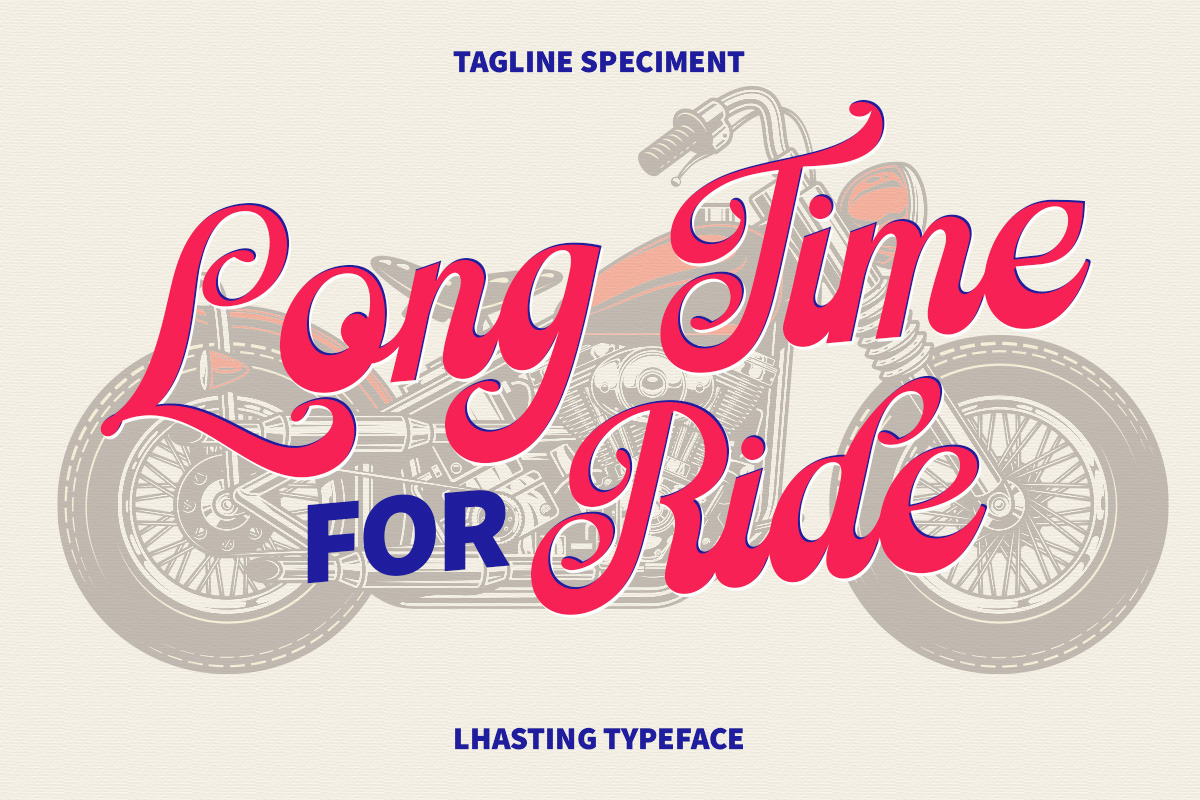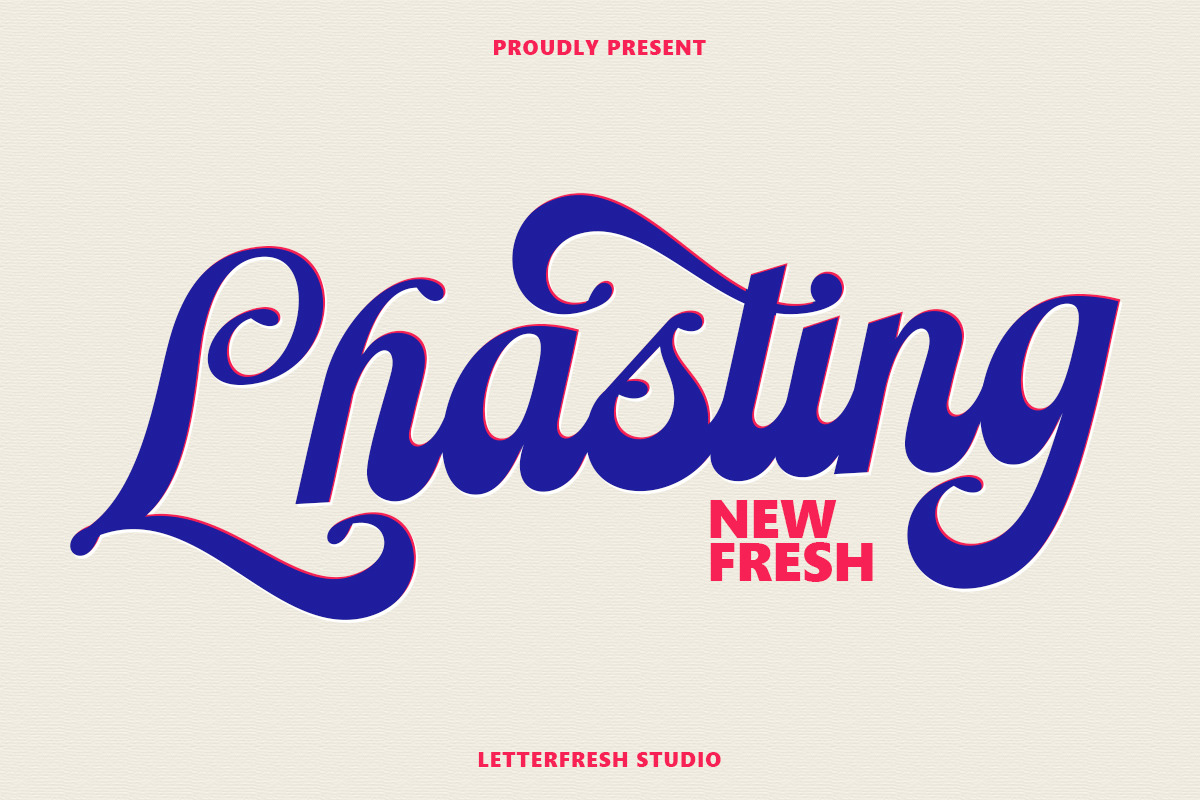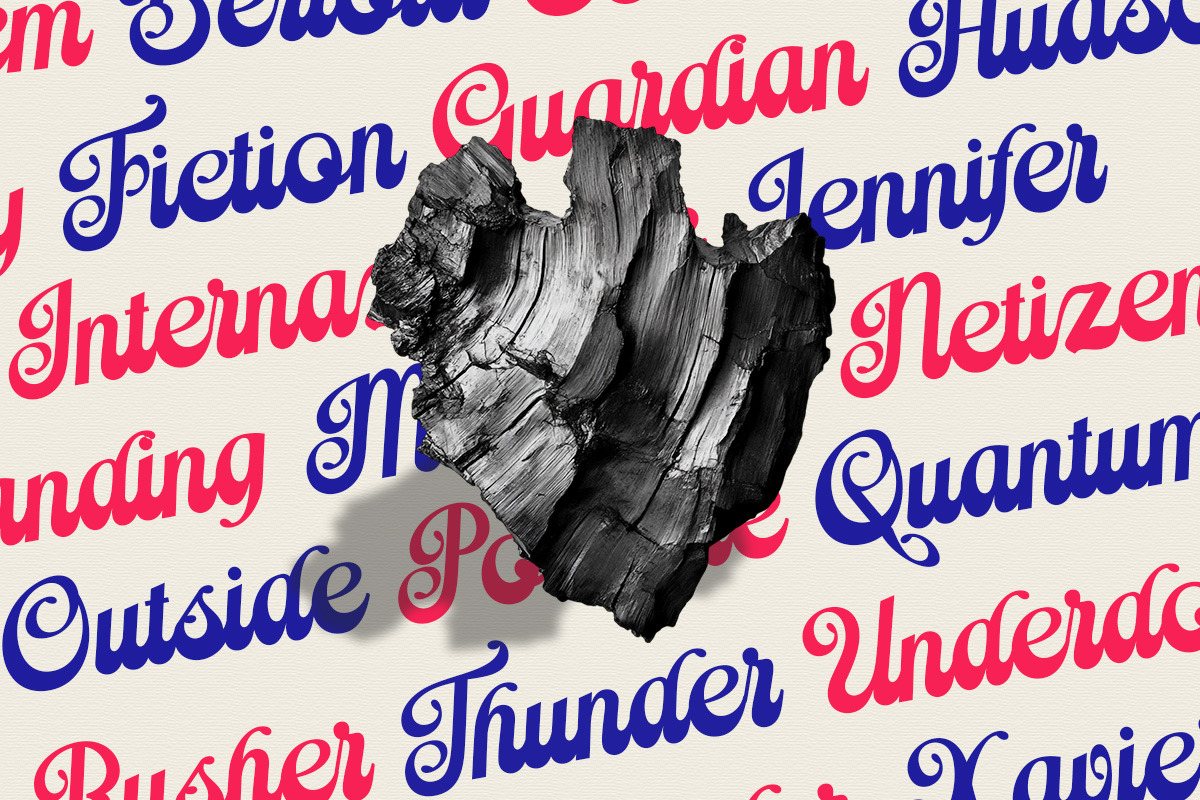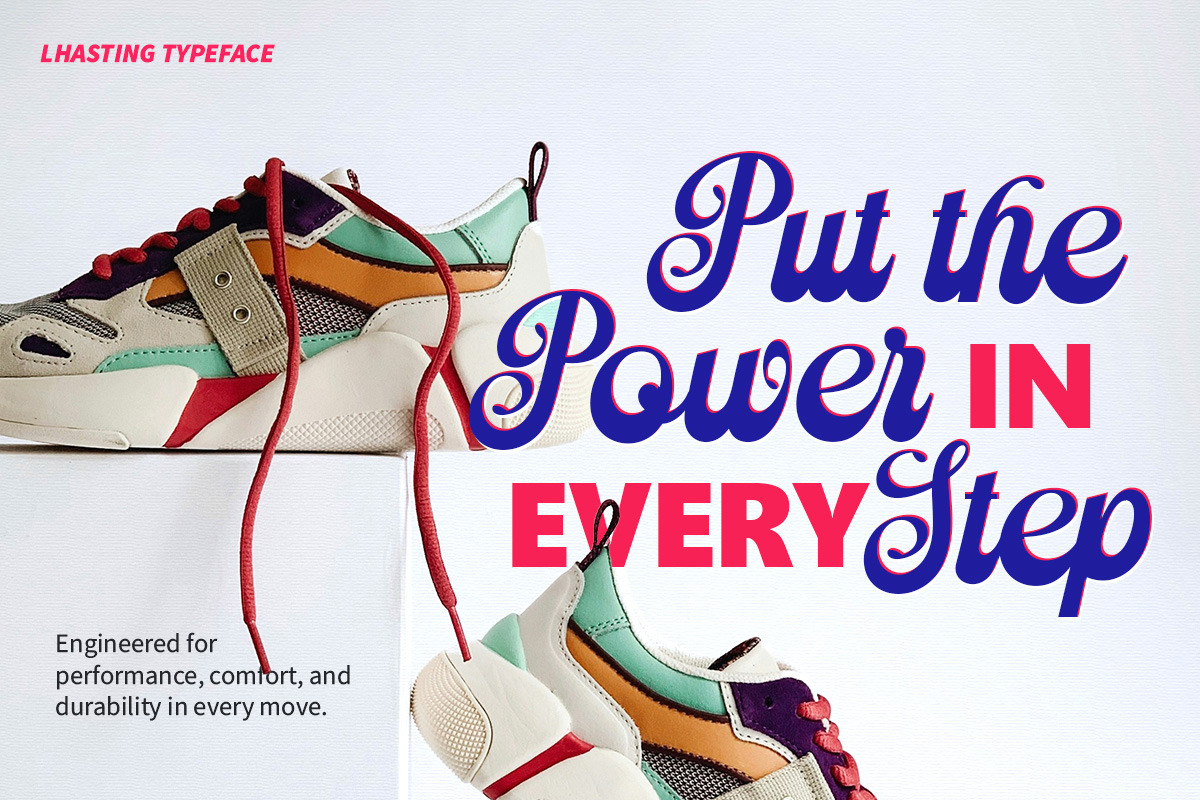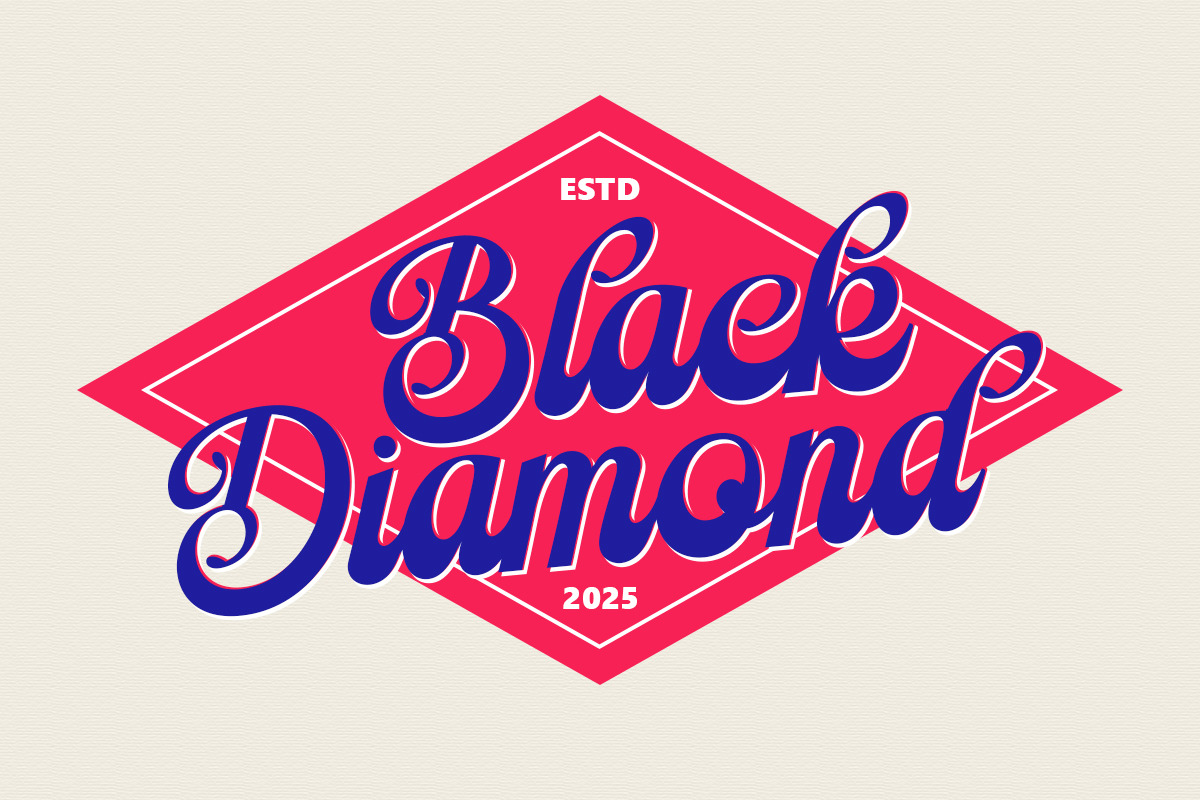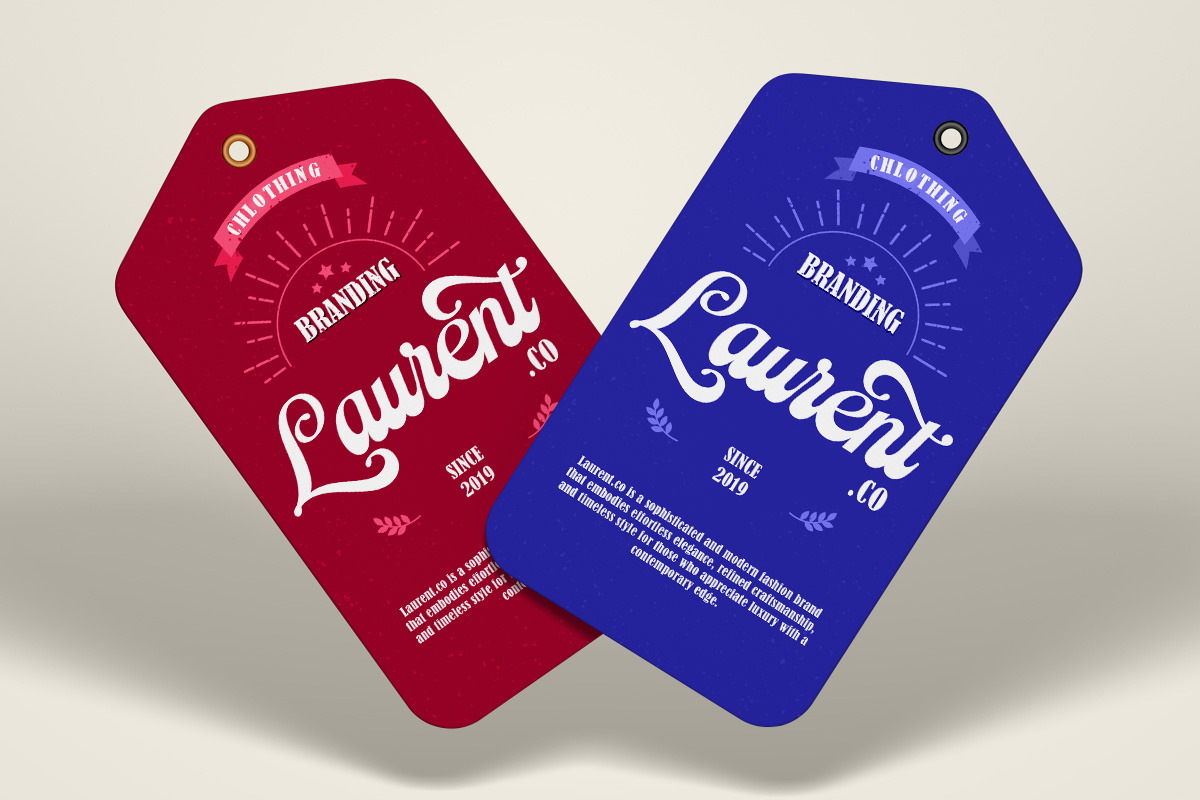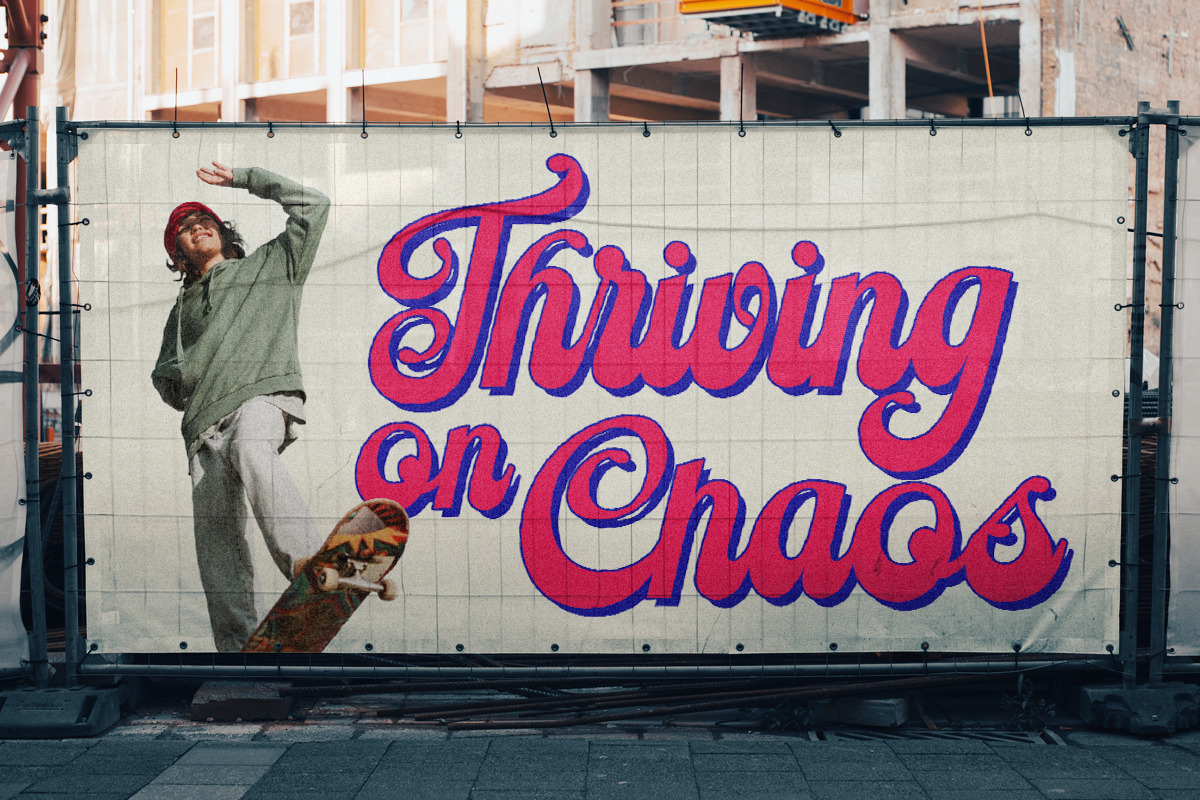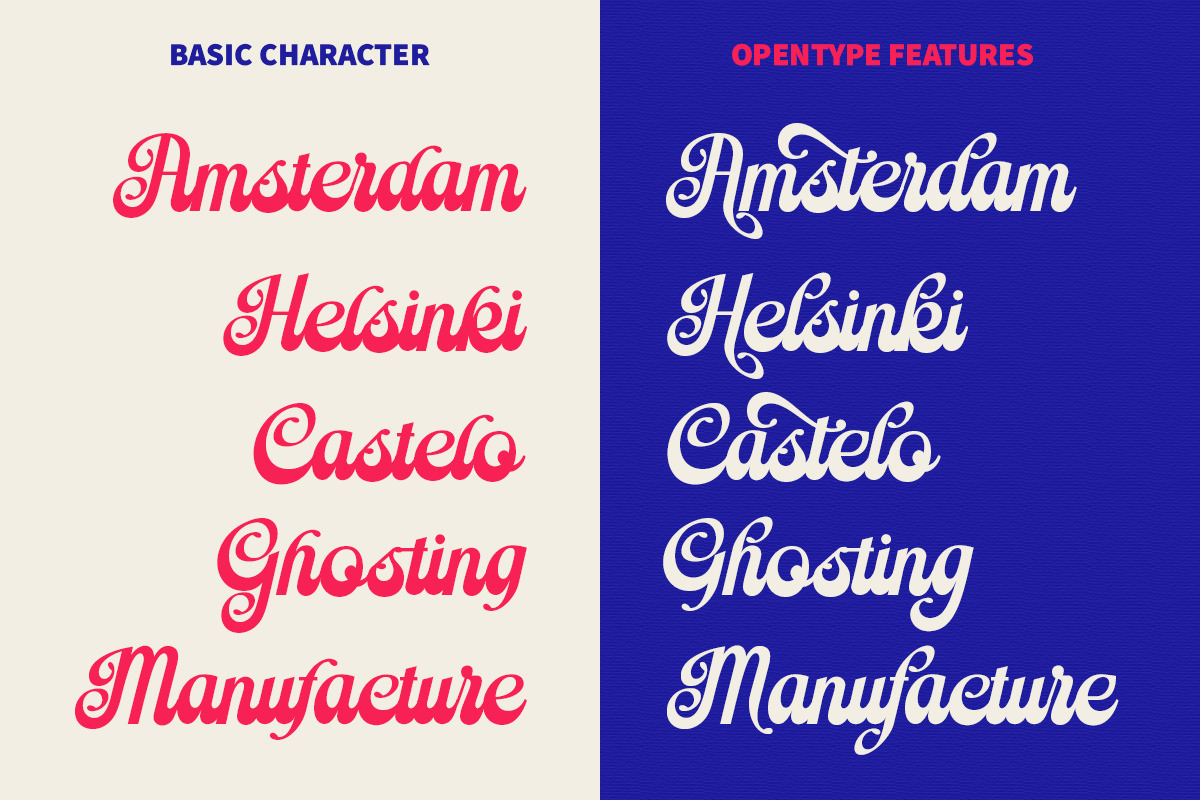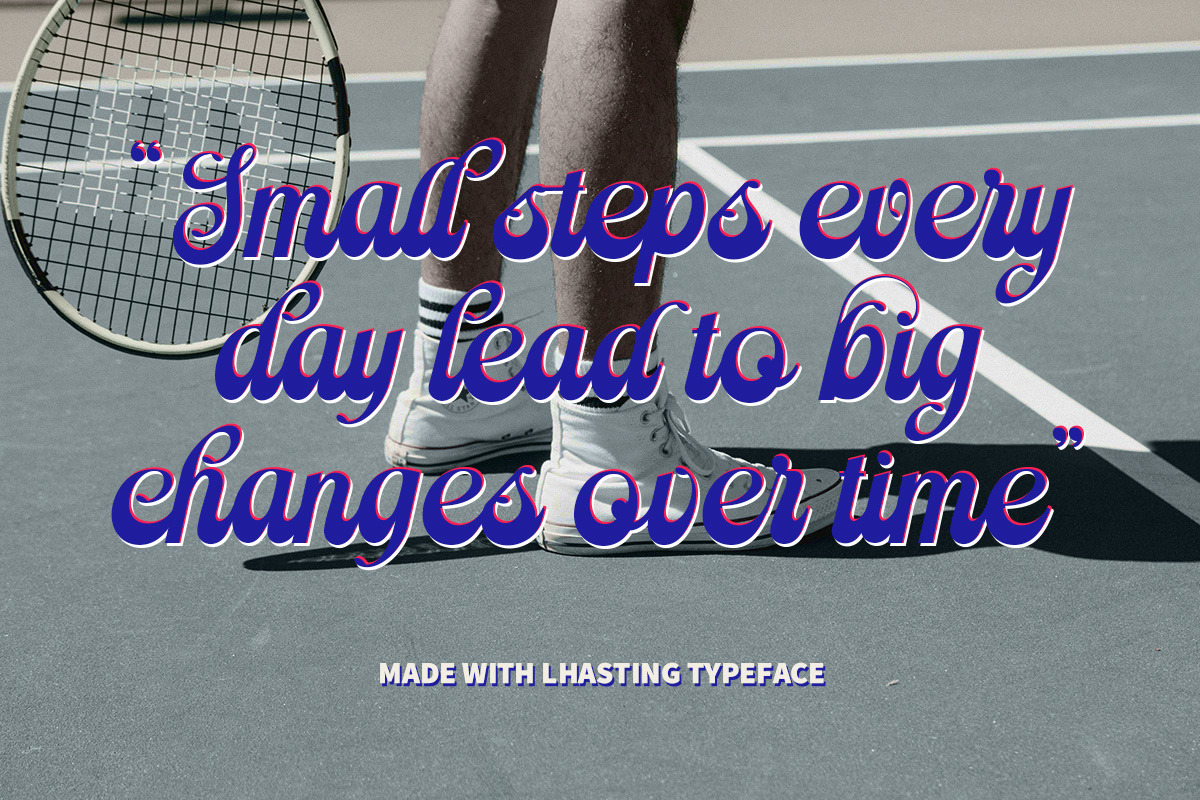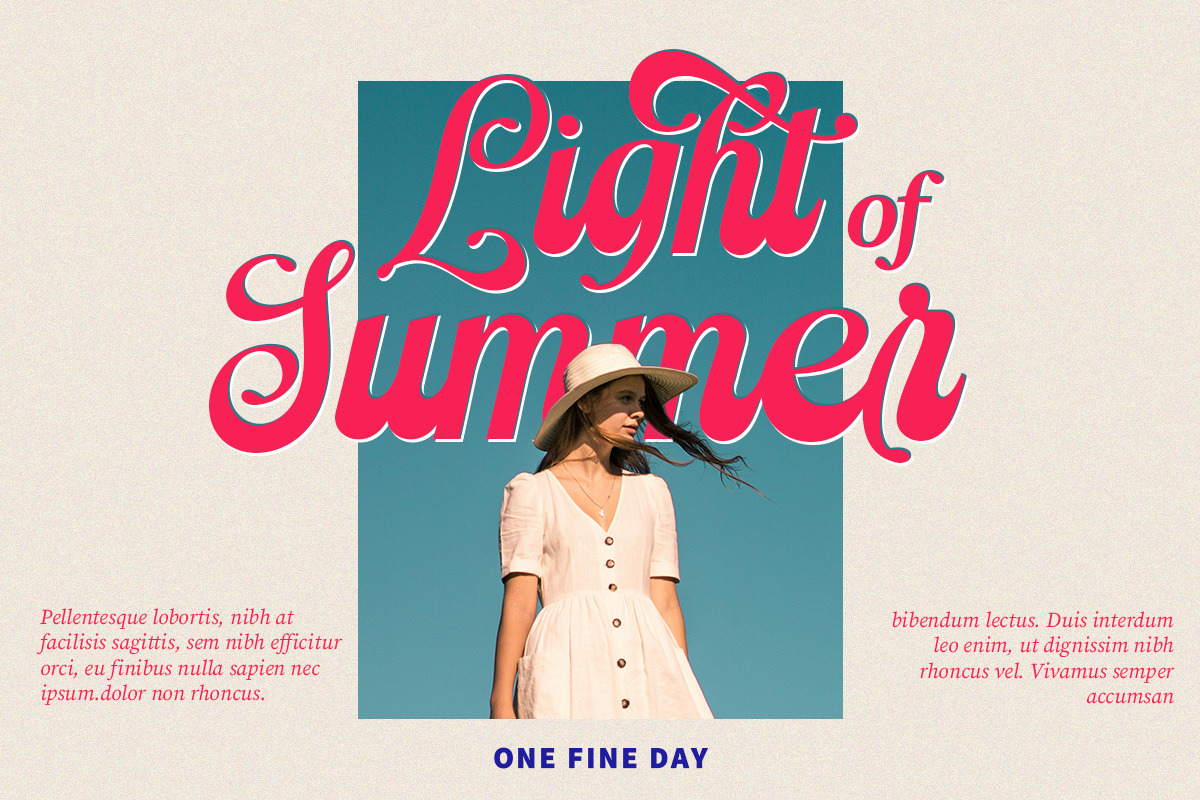
Lhasting Retro-Modern Script Font
Lhasting Script font is a stylish font that has a modern and retro look. Equipped with alternates and ligatures, this font helps create stunning logos, quotes, posts, blog posts, branding projects, magazine images, wedding invitations, and more.